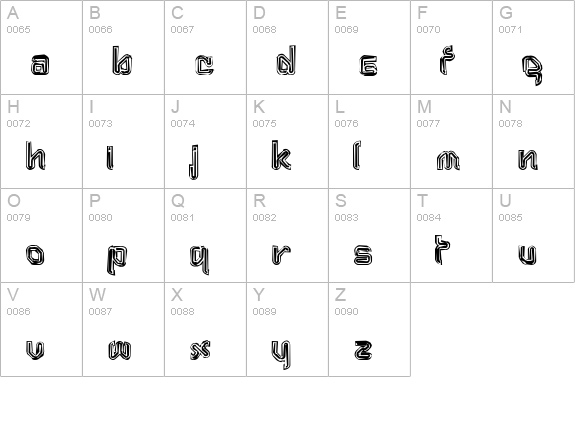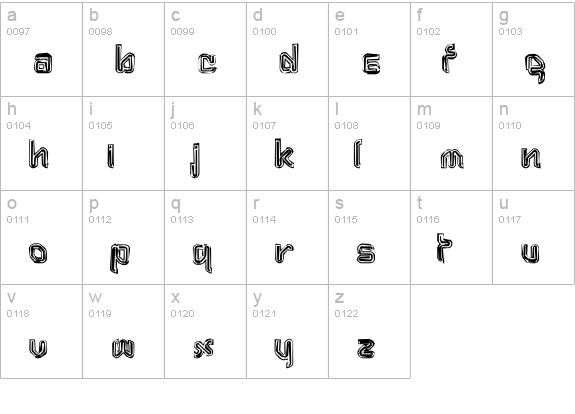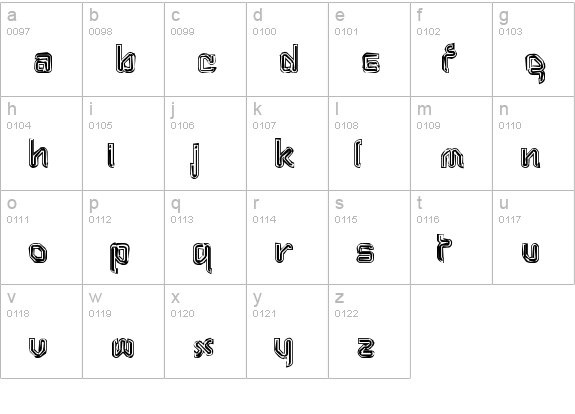
Aftermath Font Details
The Aftermath font is a modern and stylish typeface that exudes a sense of sophistication and elegance. Its sleek, clean lines and contemporary design make it perfect for a wide range of design projects, from branding to editorial design. The font's versatility allows it to be used for both headings and body text, ensuring a cohesive and professional look throughout your work. What sets the Aftermath font apart is not only its aesthetic appeal but also the fact that it is available for free. Yes, you read that right - this high-quality font can be downloaded at no cost from FontsMarket.com. Whether you are a designer on a budget or simply looking to add a new typeface to your collection, Aftermath is a fantastic choice that won't break the bank. With its timeless design and free availability, the Aftermath font is a must-have for any designer looking to elevate their projects with a touch of elegance and sophistication. Download it today and see the difference it can make in your designs!